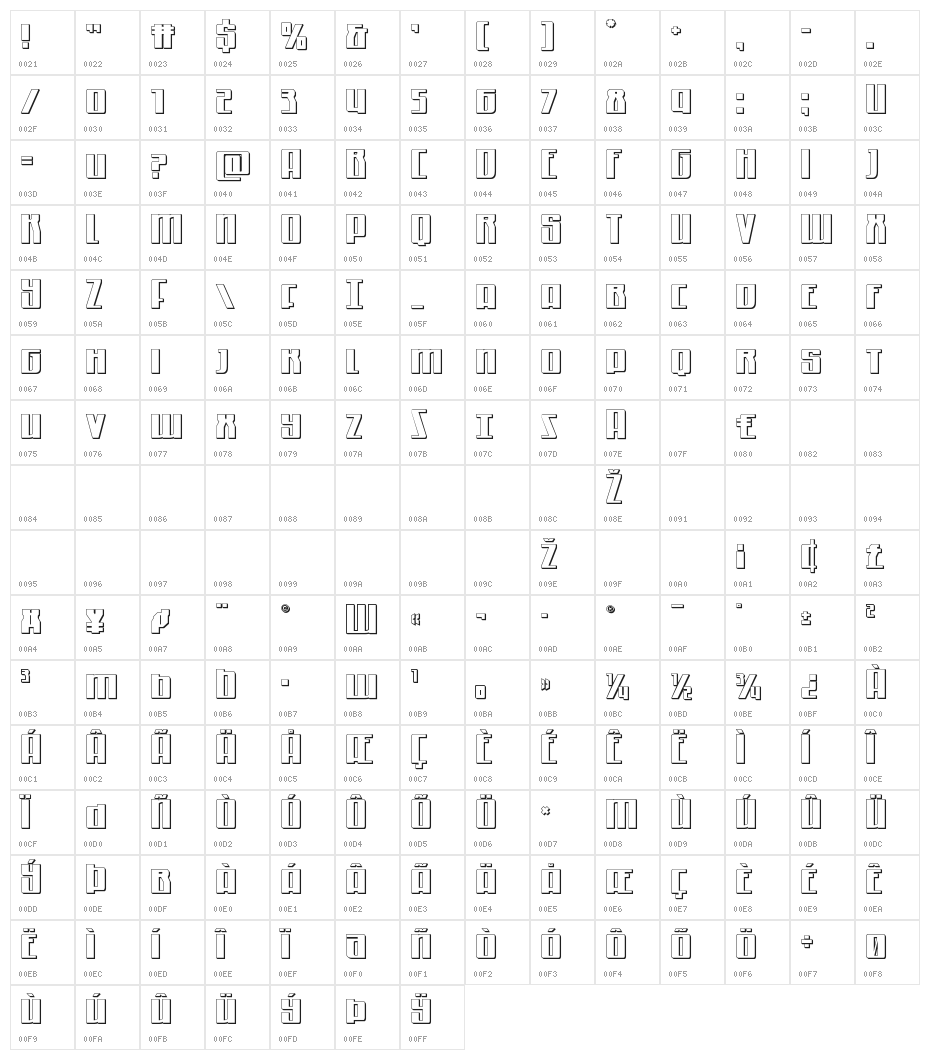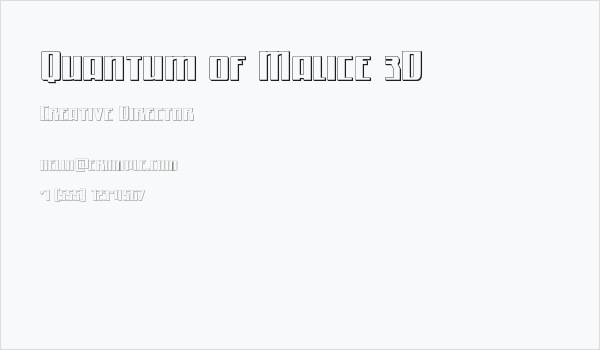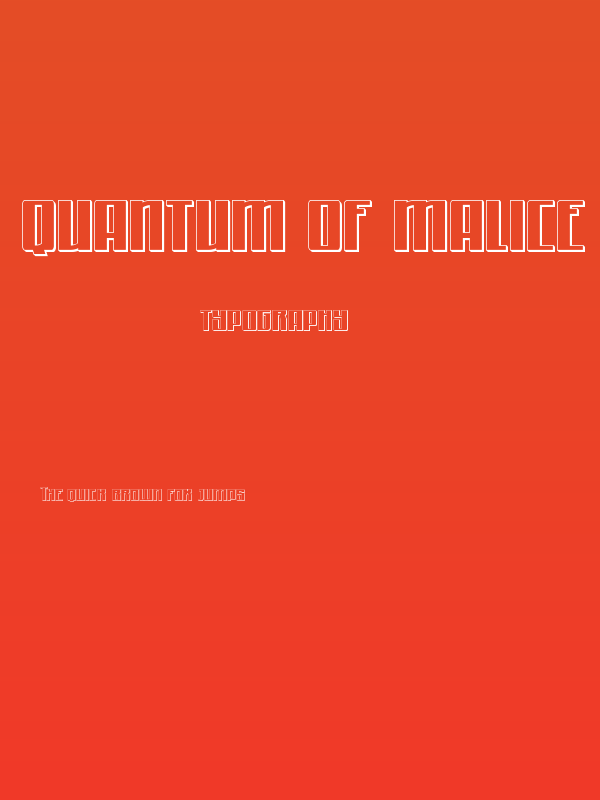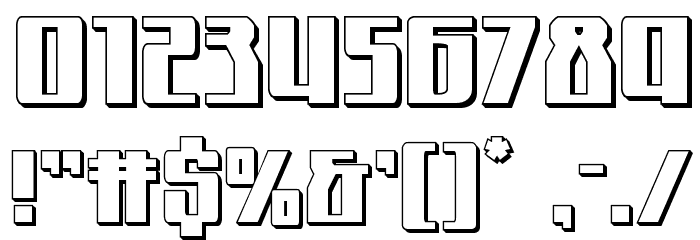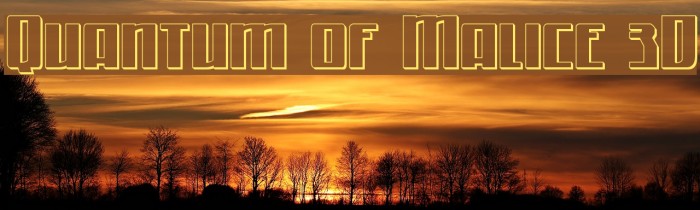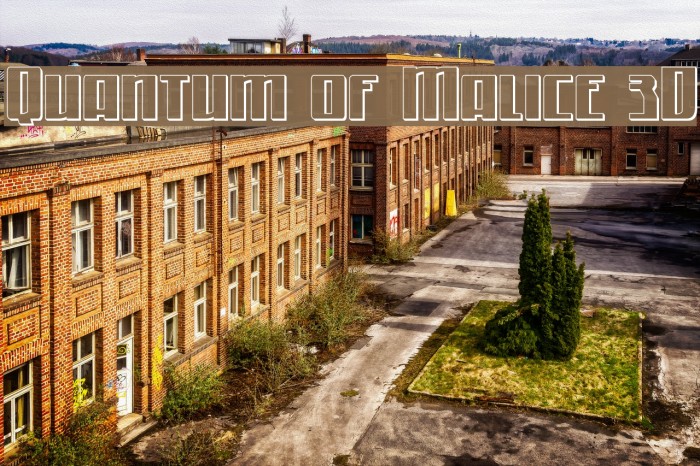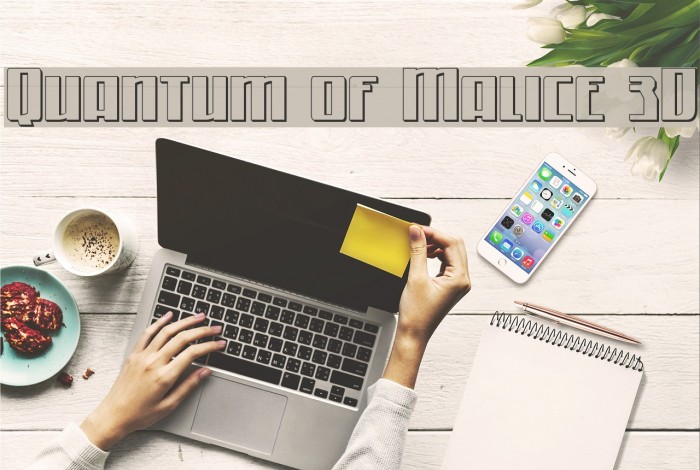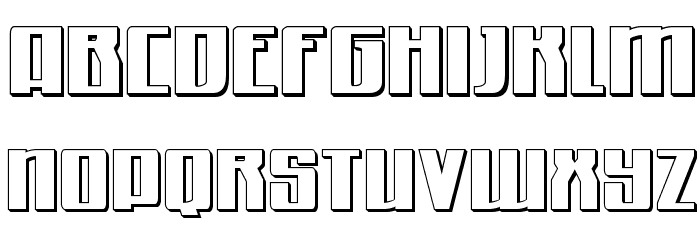
Quantum of Malice 3D Font
Quantum of Malice 3D Description
This font features a bold, three-dimensional design with a strong, geometric structure. The characters are outlined with a thick, black border, giving them a striking and impactful appearance. The uppercase and lowercase letters maintain a consistent style, with sharp angles and a futuristic aesthetic. The numbers and special characters follow the same design principles, ensuring uniformity across the entire set. This font's unique 3D effect makes it stand out, providing a sense of depth and dimension that is both modern and eye-catching.
| Proposed Projects | Ideal for video game titles, sci-fi movie posters, tech branding, and any project requiring a modern, dynamic look. |